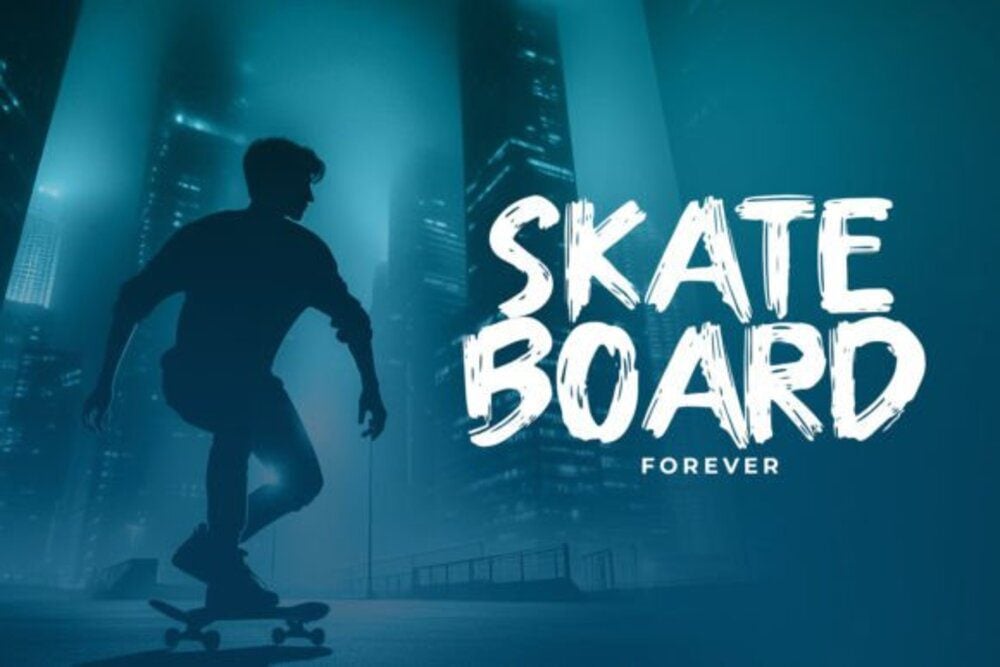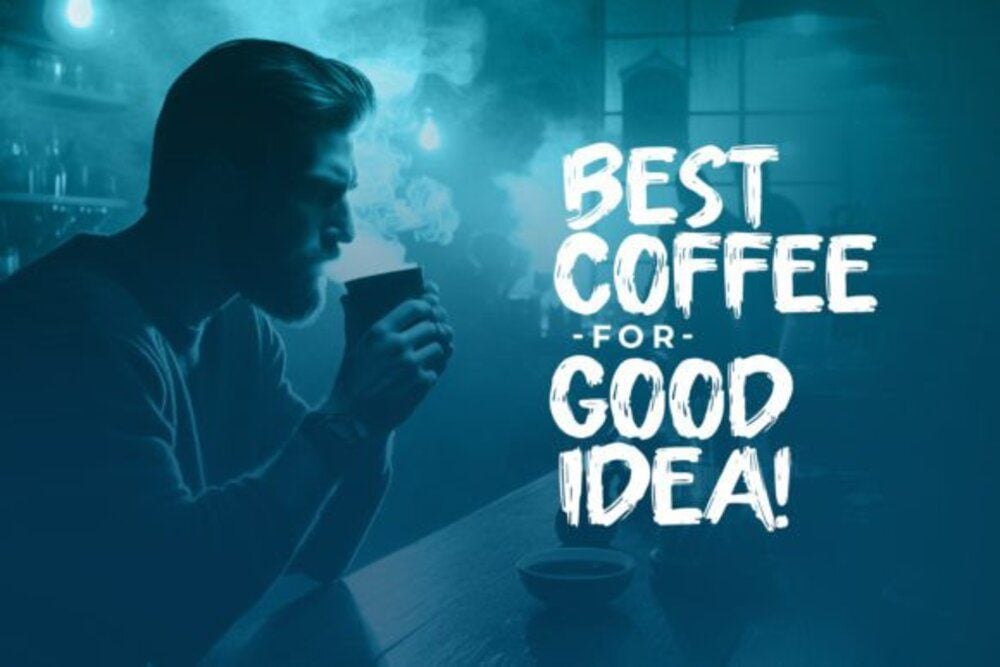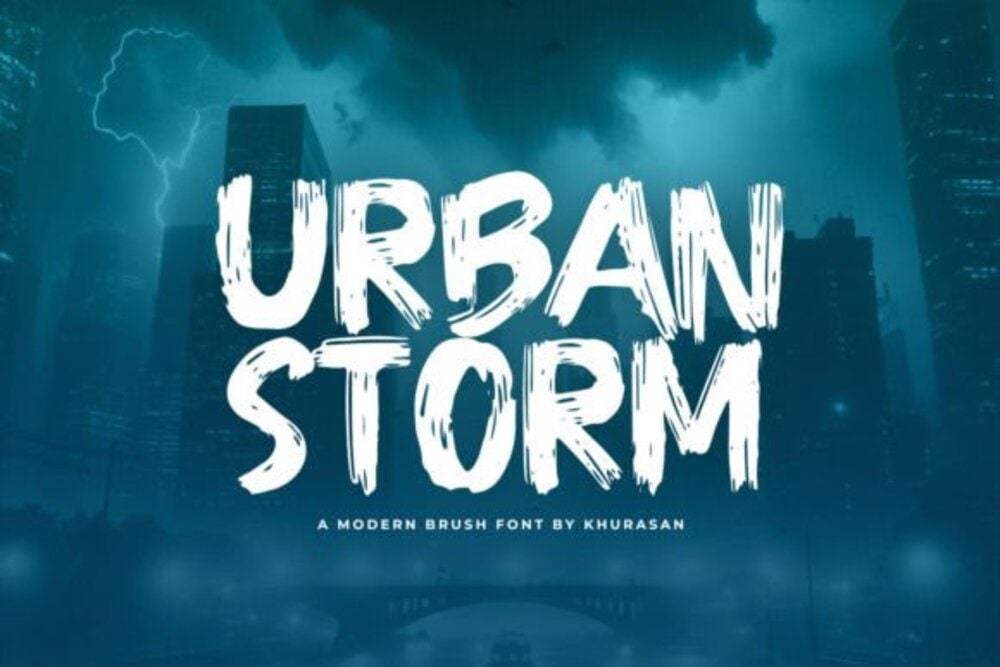
Urban Storm Font
Urban Storm Font is a bold and edgy typeface inspired by the raw energy of cityscapes and street art. Featuring sharp lines, rugged textures, and a modern aesthetic, it conveys a sense of movement and intensity. Perfect for posters, album covers, or urban-themed projects, this font captures the dynamic spirit of metropolitan life and adds a dramatic, contemporary edge to your designs.